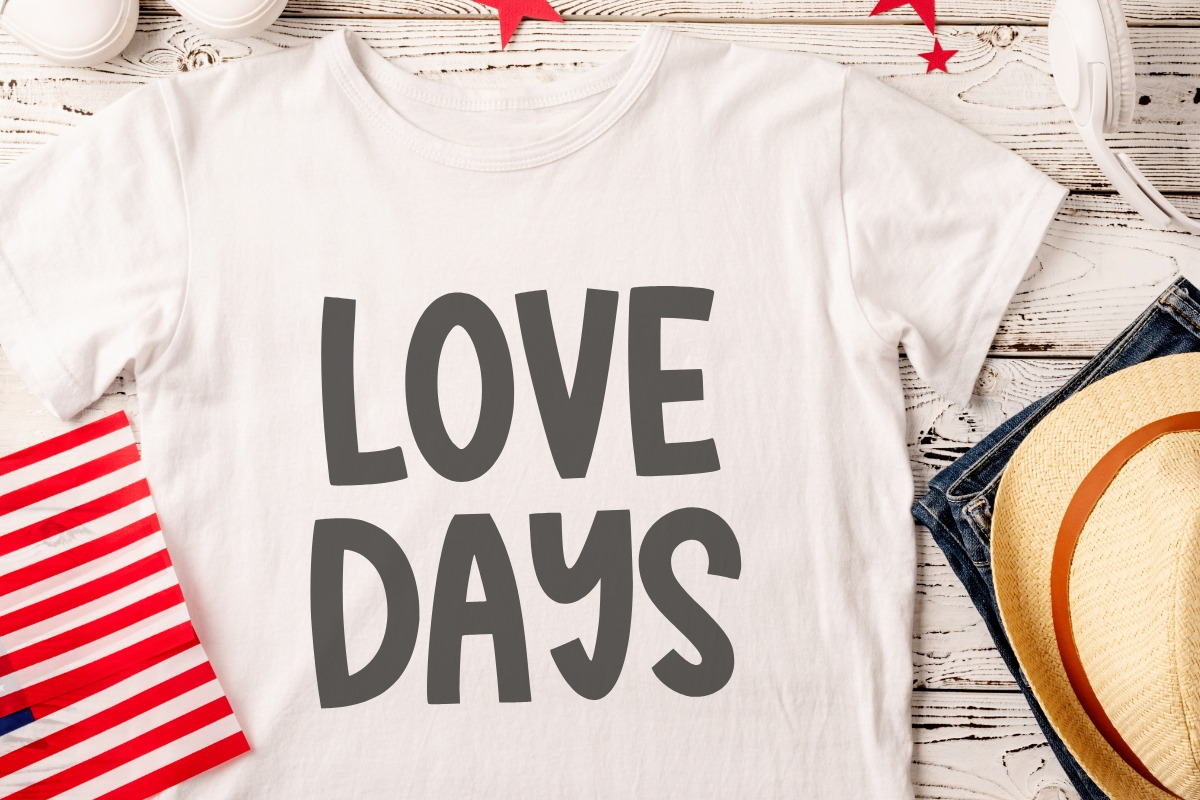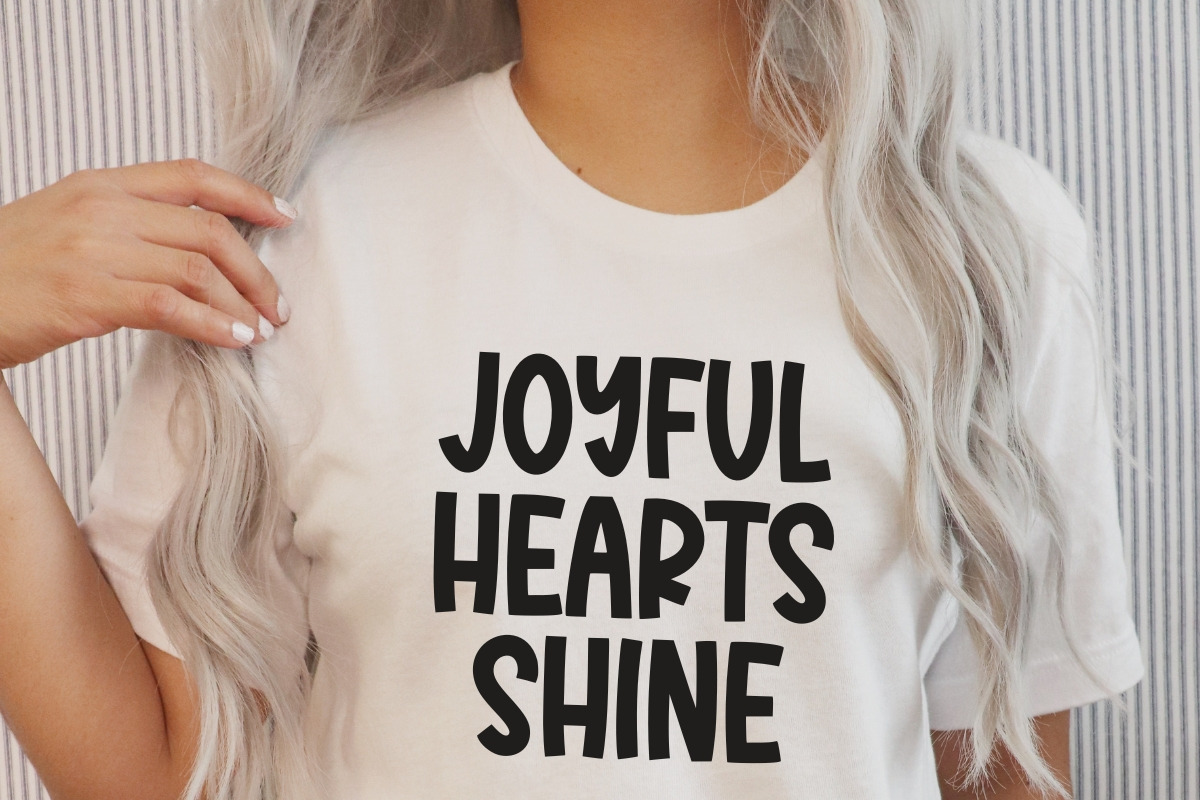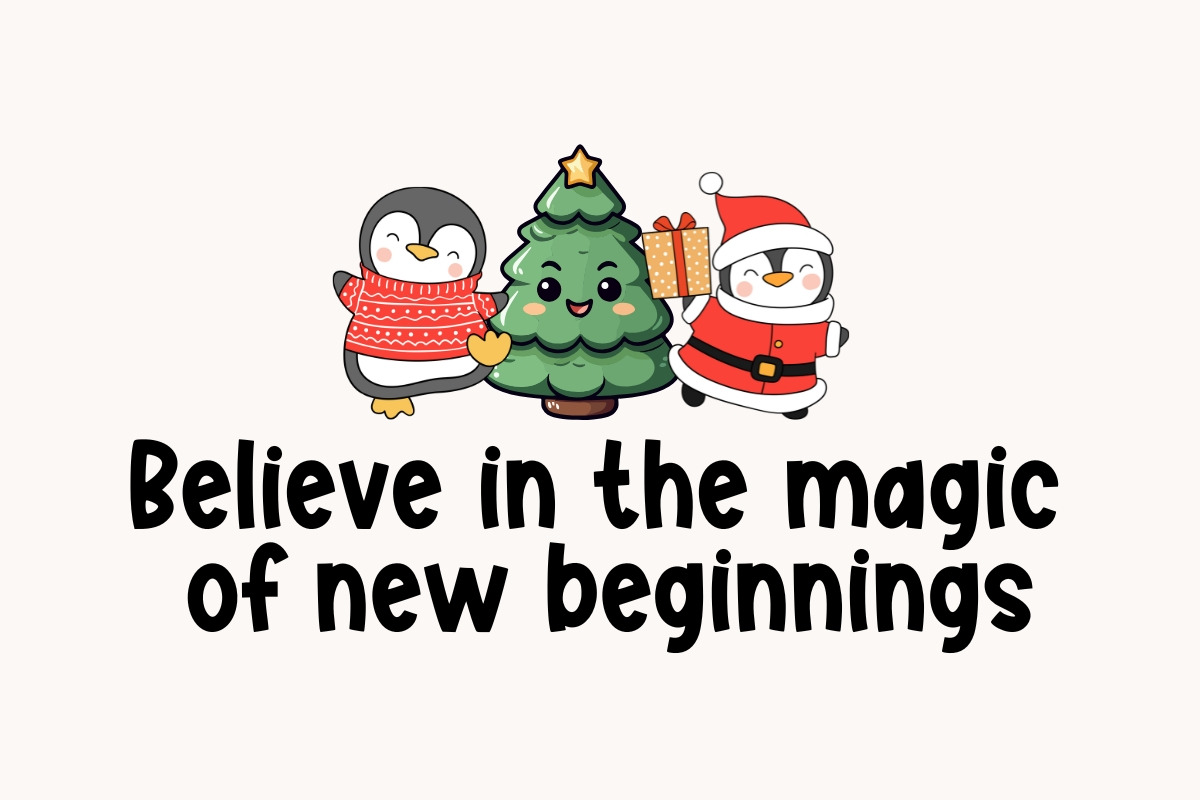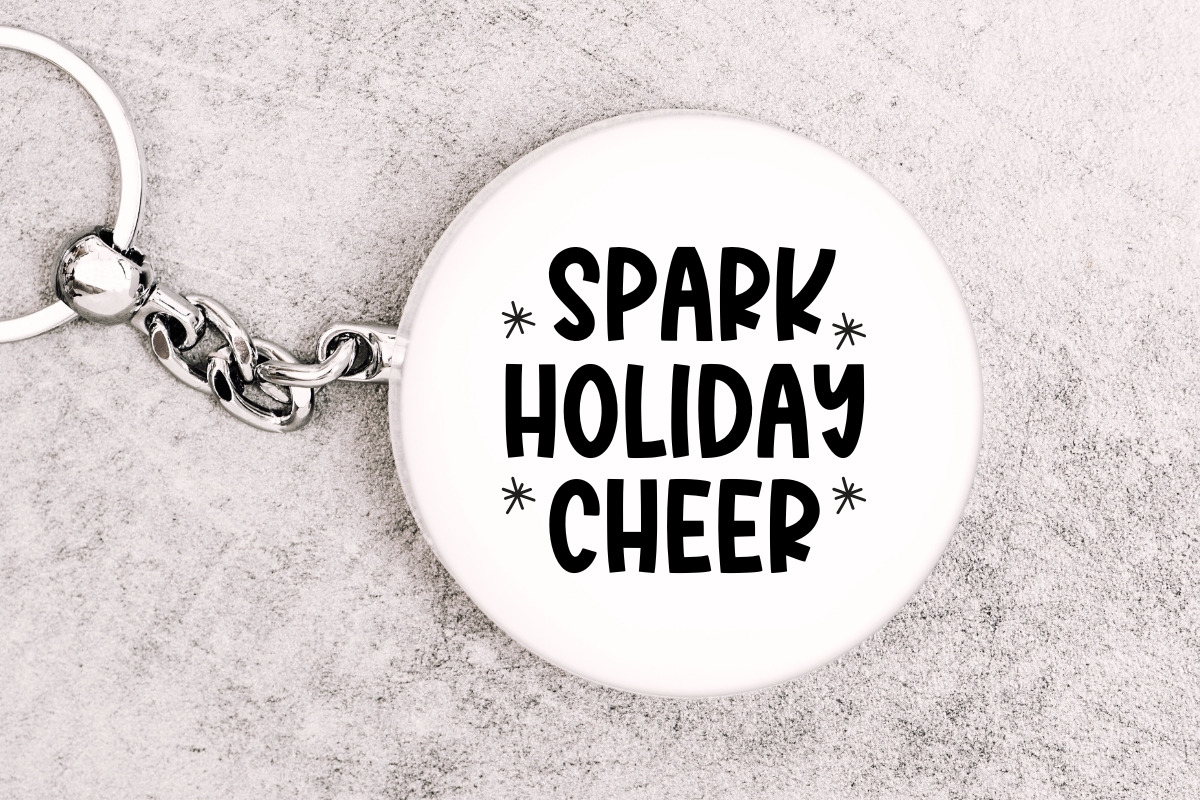
Dreamer Sunday - Cute Handwritten
Dreamer Sunday is a wonderfully fun, bold, and incredibly cute handwritten font that brings a sense of relaxed, weekend cheer to any project. This chunky display font features thick, rounded characters and a playful aesthetic, making it perfect for kids' branding, playful logo design, vibrant t-shirt prints, nursery decor, and eye-catching social media graphics. Its high readability and friendly style ensure it works powerfully as a display typeface, ideal for product packaging and crafting projects aimed at a happy, youthful audience. Make your dreams a reality with this delightful and modern playful font!